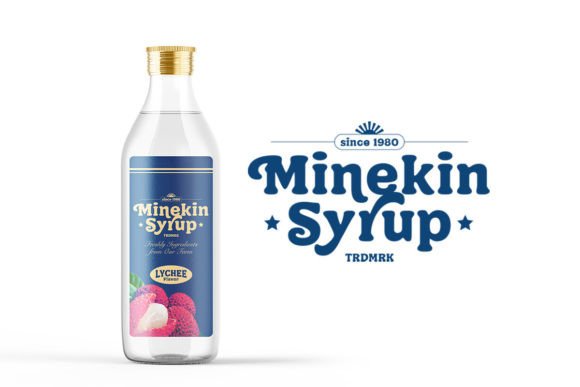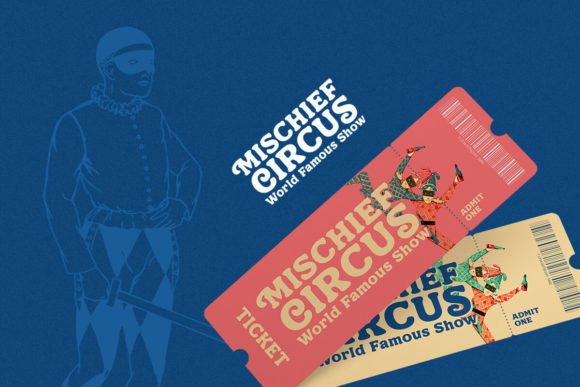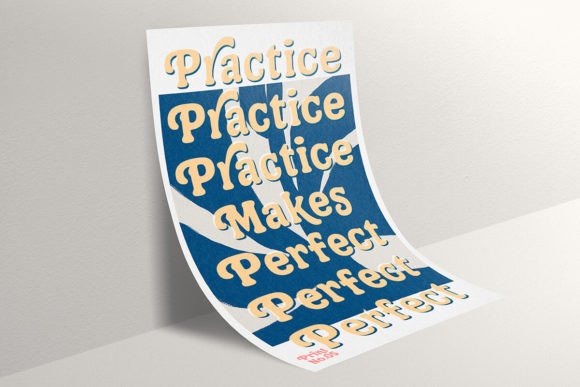
Introduction to Burning Chiller Font
Introducing Burning Chiller, a playful typeface that captures the essence of the 90s era.
Immerse yourself in its retro charm Explore the versatility of this font by incorporating the accompanying cartoon illustration to enhance your design.
Key Features of Burning Chiller Font
Why Choose Burning Chiller Font?
Burning Chiller Font offers exceptional quality and versatility, making it a valuable addition to your design toolkit. Whether you’re creating for personal projects or commercial use, Burning Chiller Font delivers professional results.